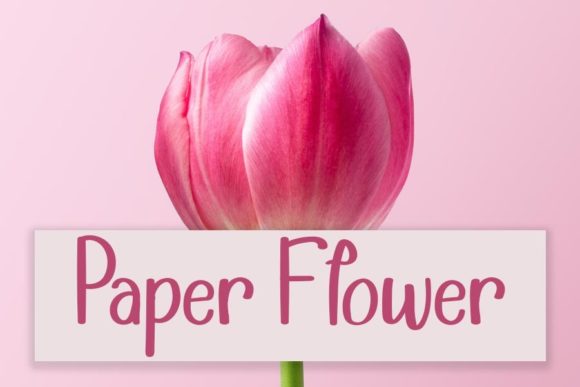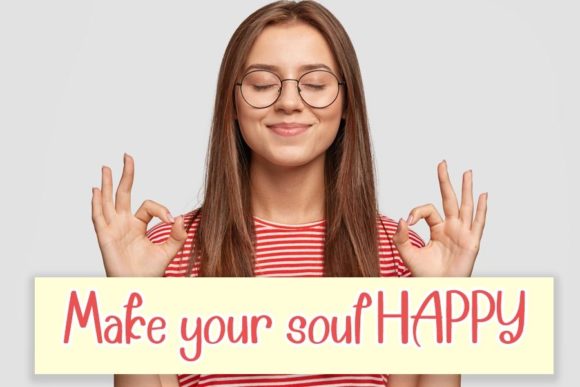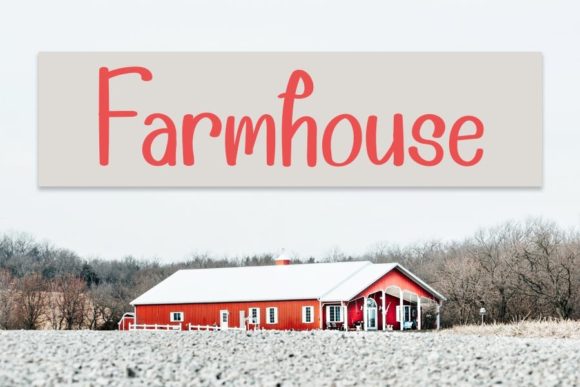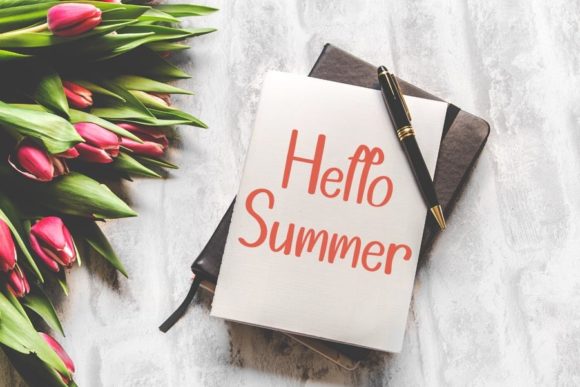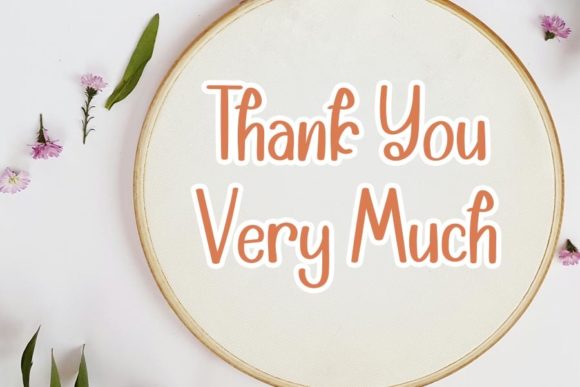
Little Rabbit Font
About Little Rabbit Font
Little Rabbit is a cute, friendly and jolly display font. Embodying authenticity and fun, this font is perfect for children themed designs, especially when combined with bright colors.